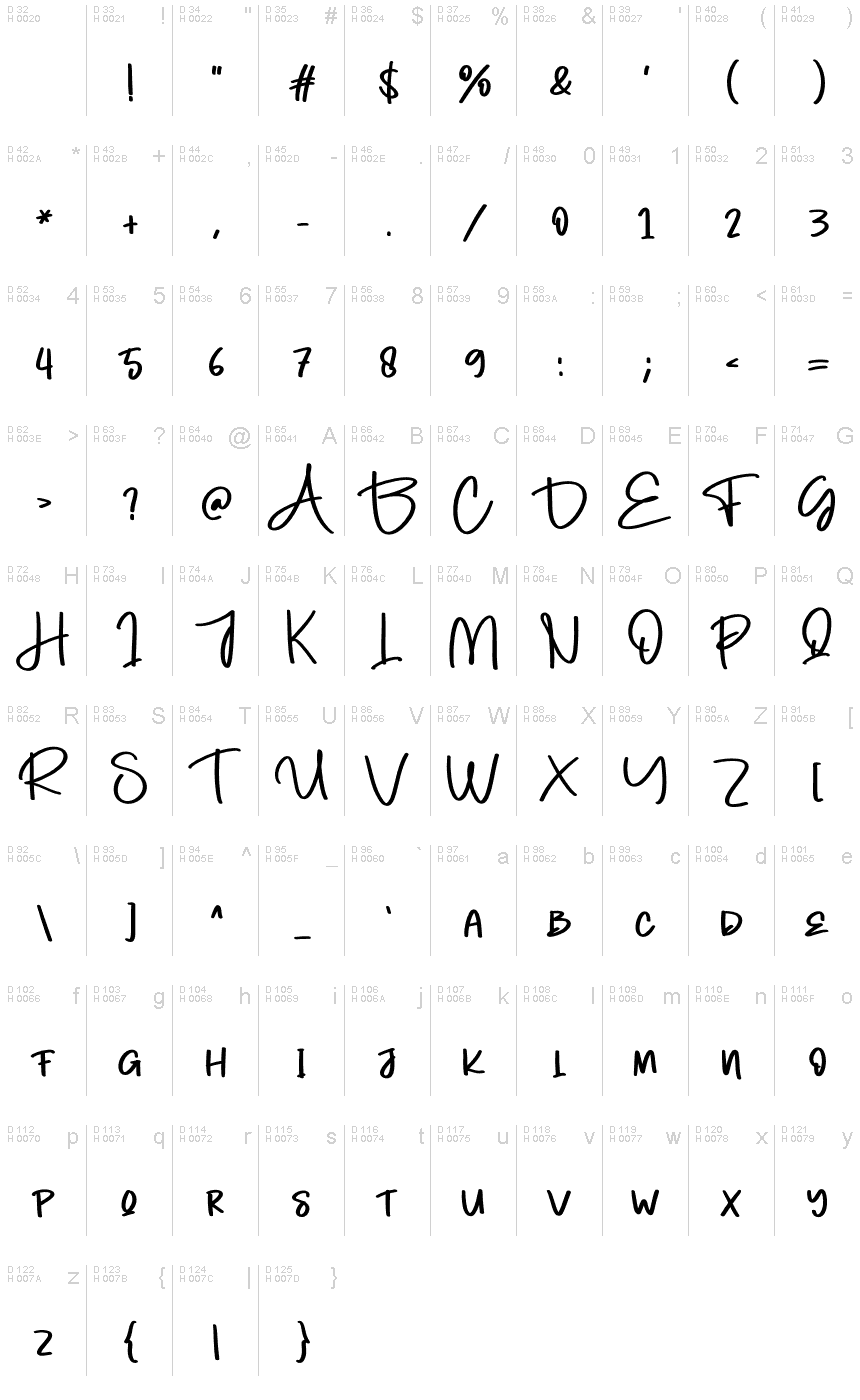
Black Girl
Black Girl, a captivating handwritten font crafted by Scratchones, exudes a touch of whimsy and elegance.
Its semi-light weight adds grace to every stroke, making it the perfect choice for fashion lookbooks and beauty blogs. With its unique style, Black Girl adds a personal touch to wedding invitations and greeting cards, while also bringing life to recipe books and food blogs. This versatile font effortlessly blends with lifestyle magazines, inspiring travel brochures, and artistic portfolios.
Let Black Girl elevate your projects with its charm and versatility.